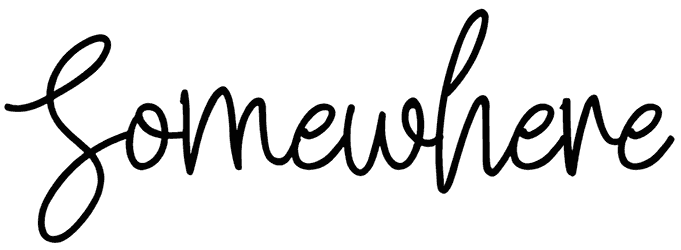
Somewhere Font
The first step of becoming a successful graphic artist is choosing a suitable and cohesive font, and in this regard, a glamorous script font the same as Somewhere can be really helpful. Since this bullet journal font comes with curved and stretched characters, it can diversify your branding projects, logos, brochures, or illustrations by adding a vibe of drama, dynamism, or majesty.